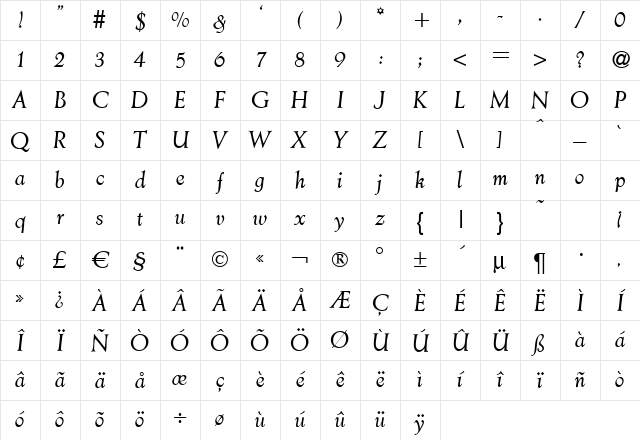
Aesop Italic
Aesop Family
Design Context for Aesop
Aesop is a composed and adaptable typeface that performs quietly and consistently across a wide range of design contexts. The slanted form adds forward momentum and visual energy.